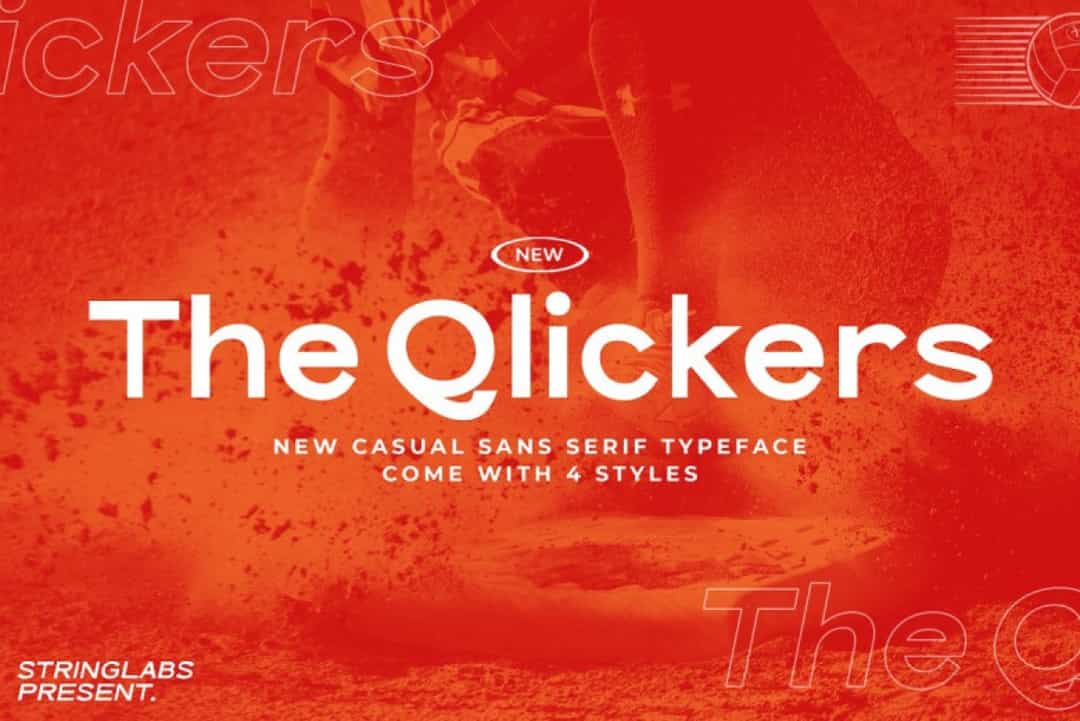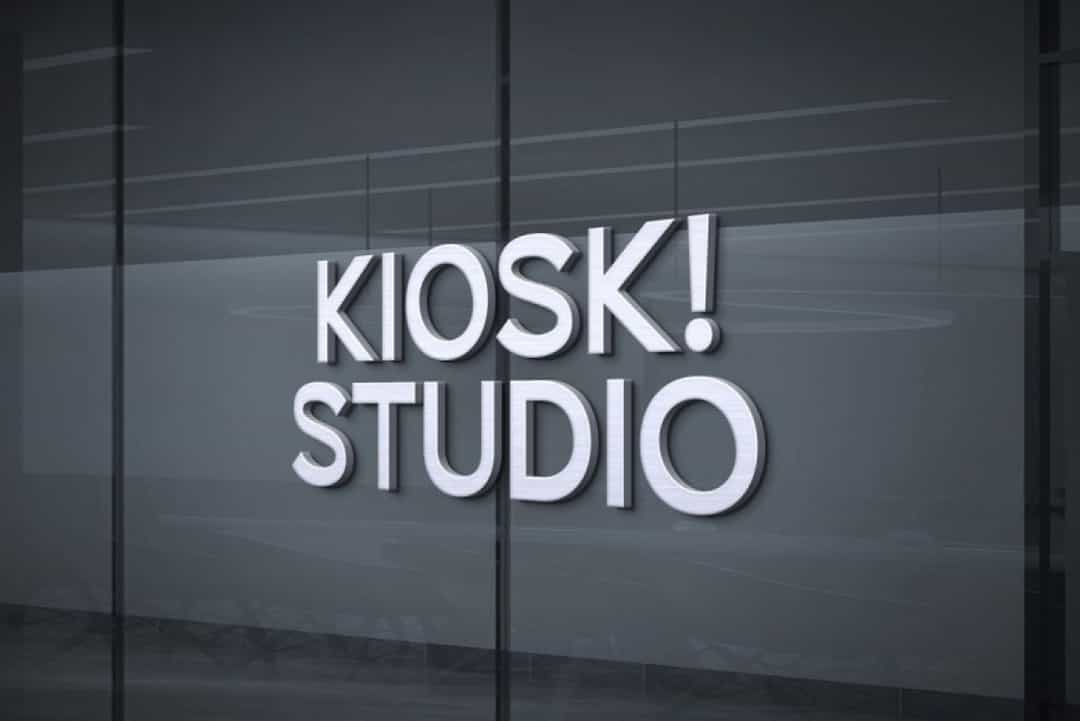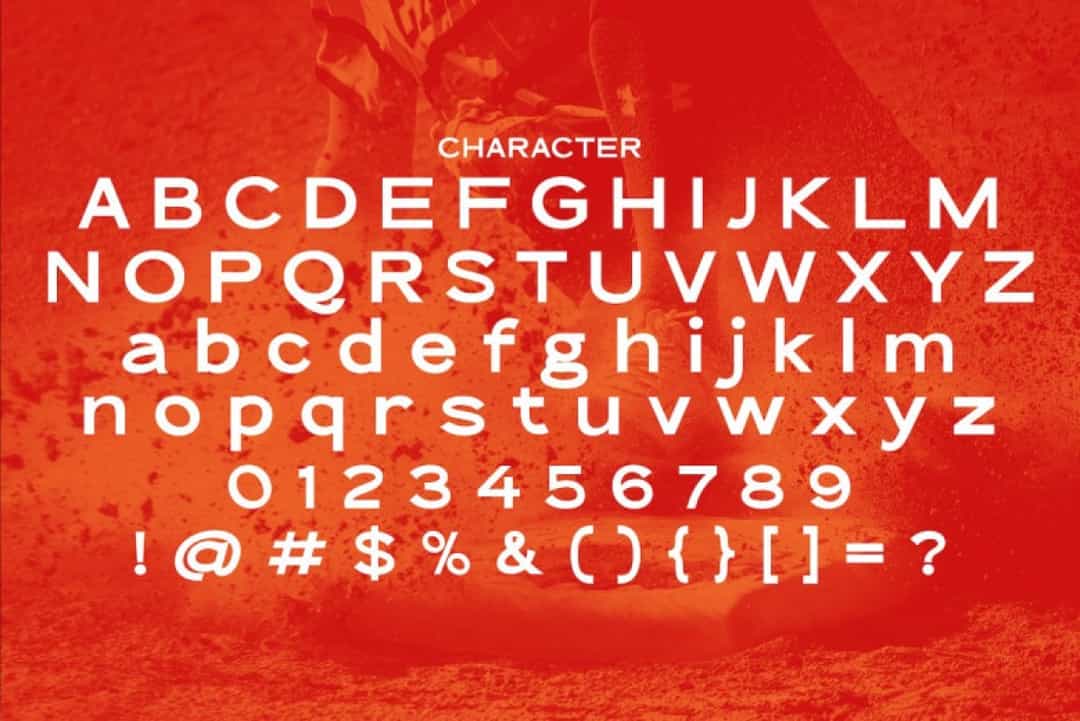
The Qlickers typeface is an elegant yet informal sans Serif typeface designed for use on flyers or posters or prints, looking beautiful on any print piece or flyer. Perfectly suitable for headlines, film posters blocks subheadings block letters design logos as well as many more applications!